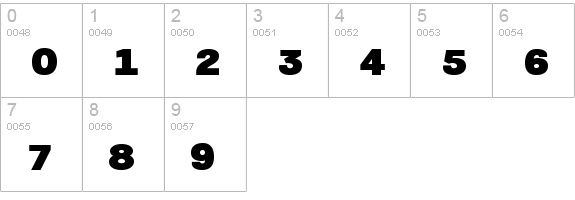
The PFEncoreSansPro-UltraBlack font is a bold and attention-grabbing typeface that demands to be noticed. With its ultra-black weight, this font exudes power and authority, making it perfect for headlines, titles, and other design projects that require a strong and impactful look. The sleek and modern design of PFEncoreSansPro-UltraBlack gives it a contemporary edge, while its clean lines ensure readability in any application. What sets PFEncoreSansPro-UltraBlack apart is that it is available for free download at FontsMarket.com. This means that designers and creatives can easily access this high-quality font without any cost, making it a valuable addition to any font library. Whether you need a font that makes a statement or simply want to experiment with a bold typeface, PFEncoreSansPro-UltraBlack is an excellent choice that won't break the bank. Download it today and elevate your designs with this striking and versatile font.